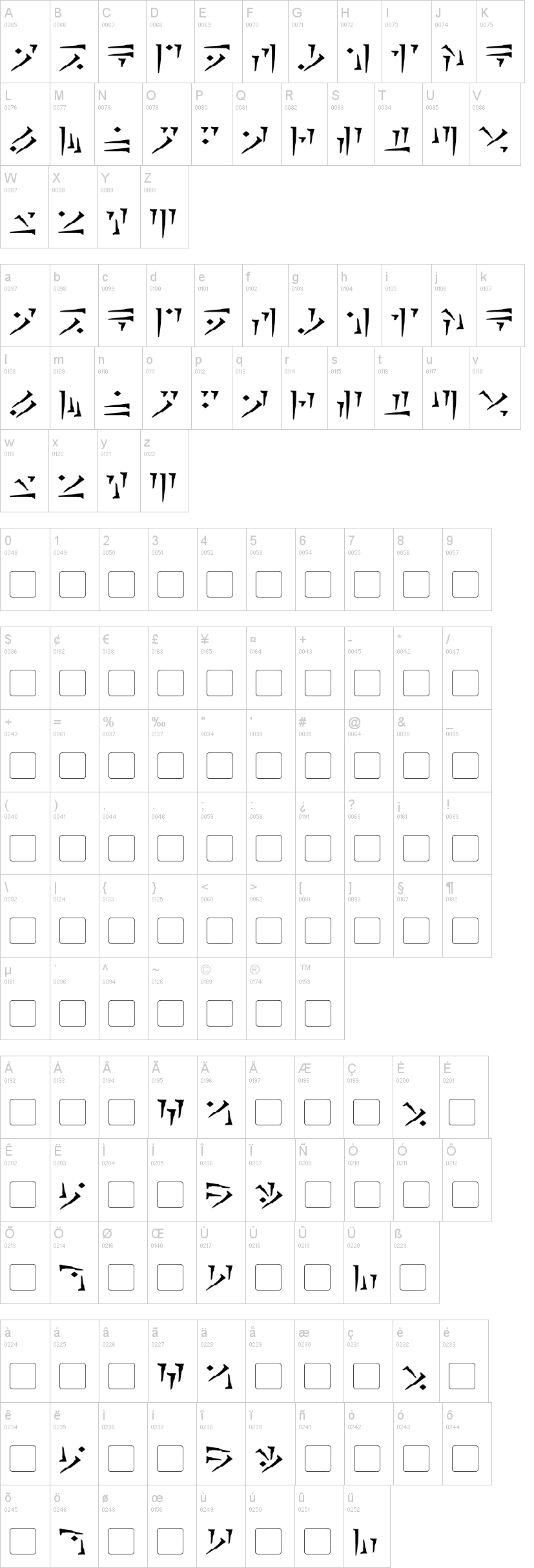
Dovahkiin Italic.otfDovahkiin Bold.otfDovahkiin Bold Italic.otfNote of the authorDovahkiin is based on the runic dragon-script found within Bethesda Softworks The Elder Scrolls: Skyrim game. This is a sharp, crude face design to resemble claws tearing into stone. Includes all canon characters. Includes regular, bold, italic, and bold-italic faces.
Alternate Symbols:
Number 1: AA
Number 2: AH
Number 3: EI
Number 4: EY
Number 5: II
Number 6: IR
Number 7: OO
Number 8: UU
Number 9: UR